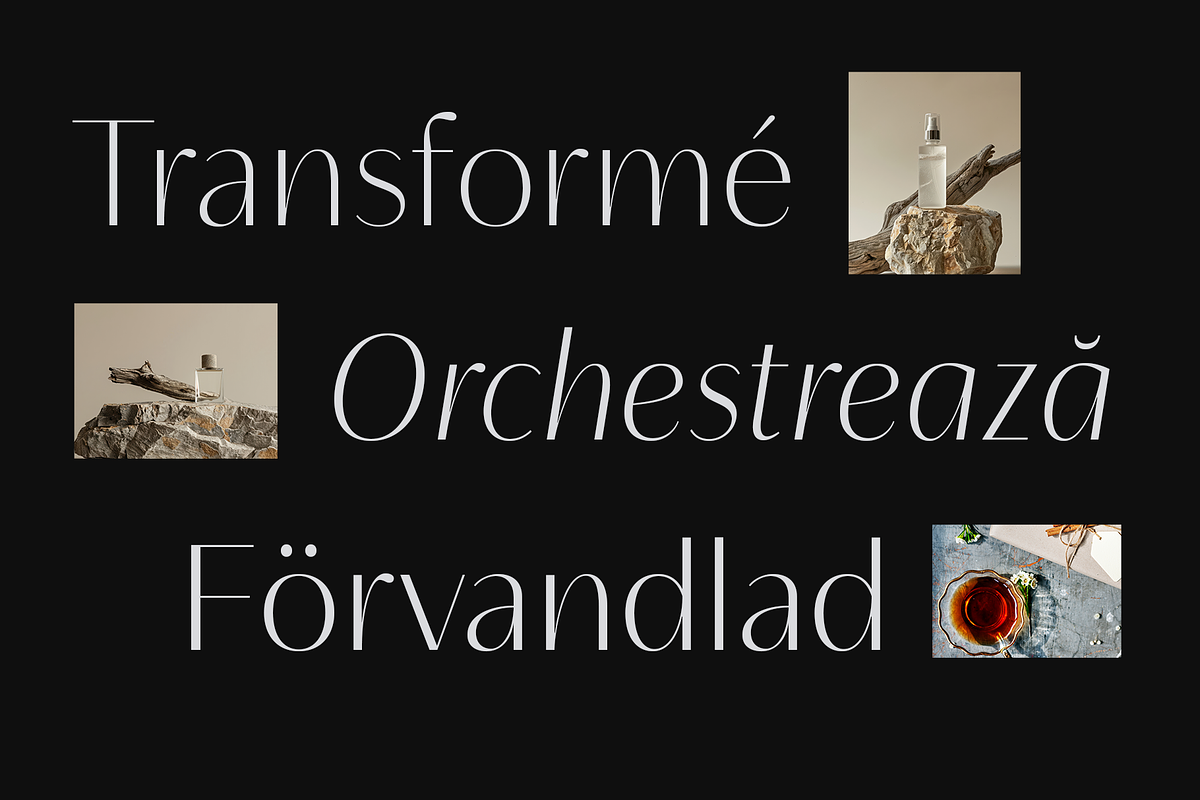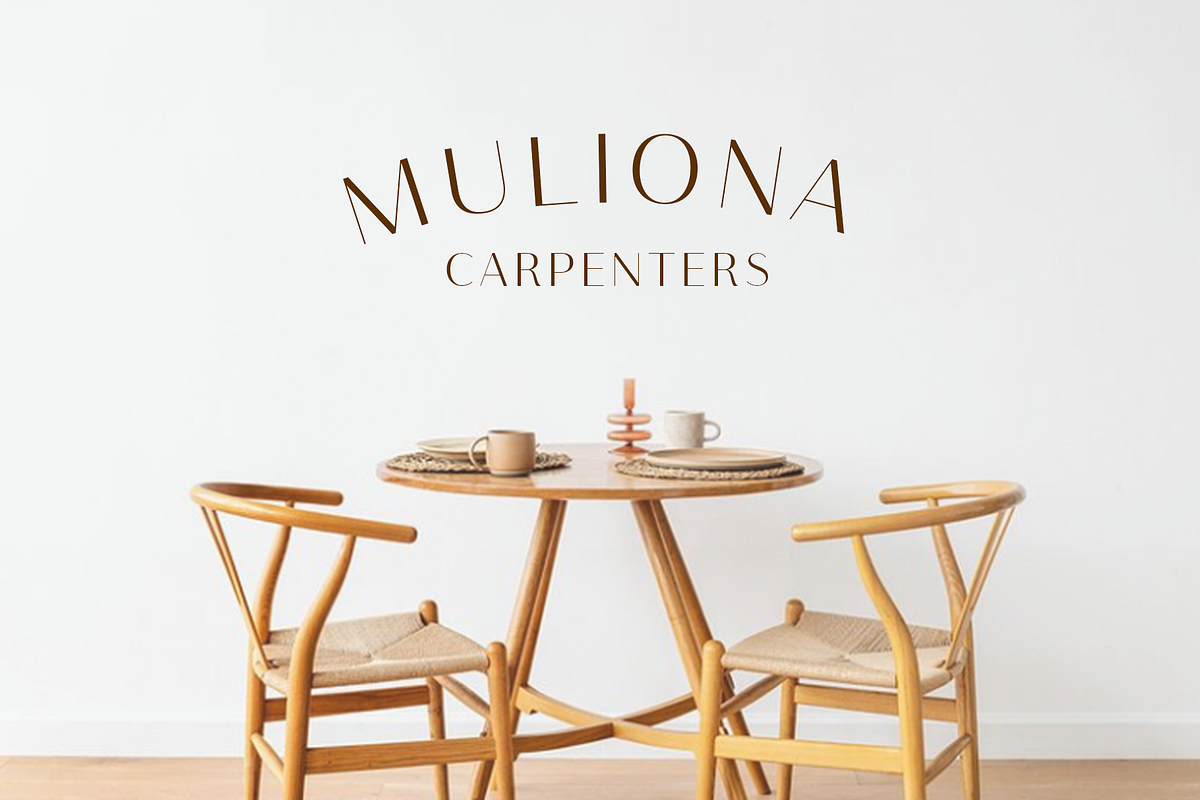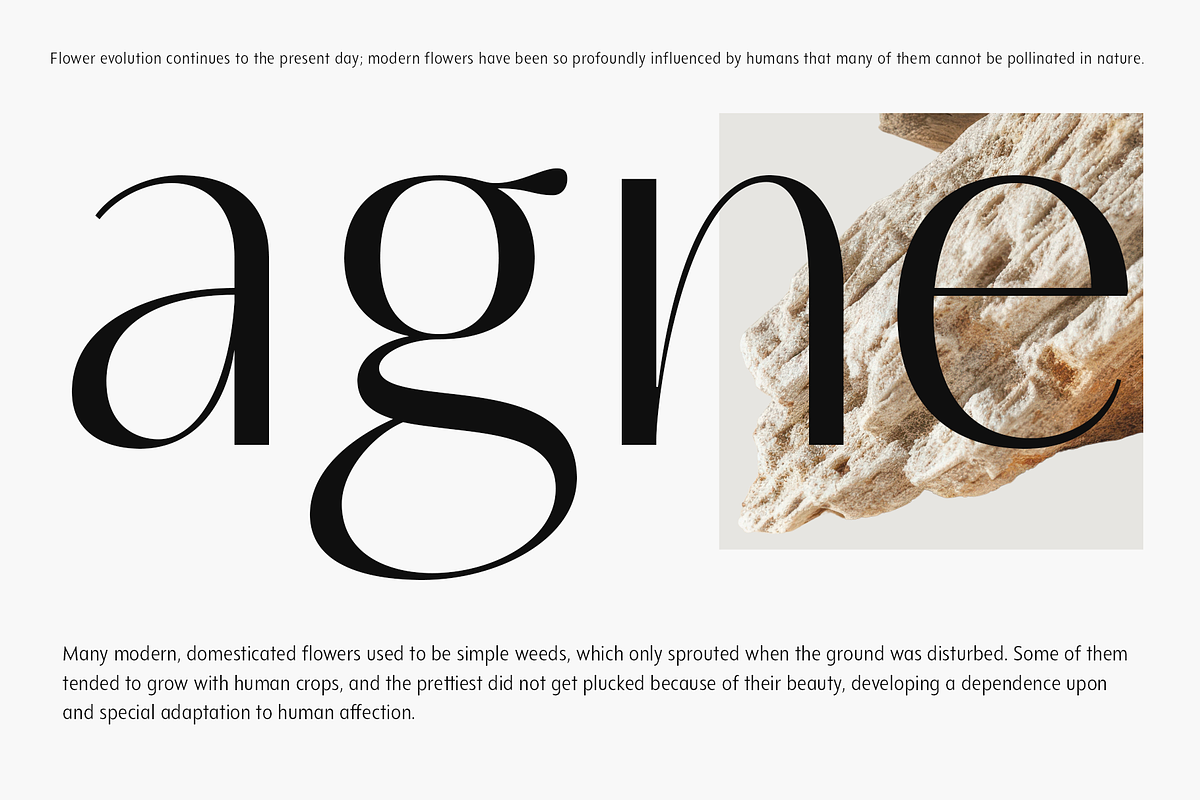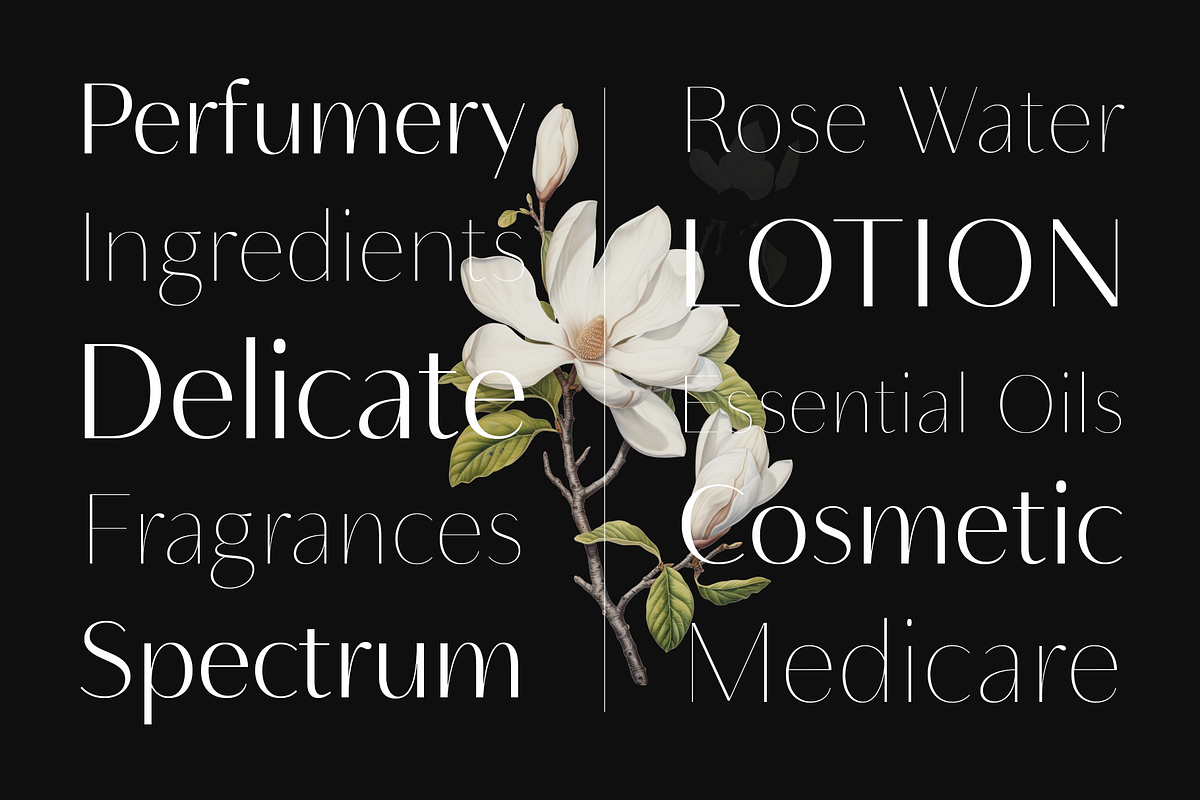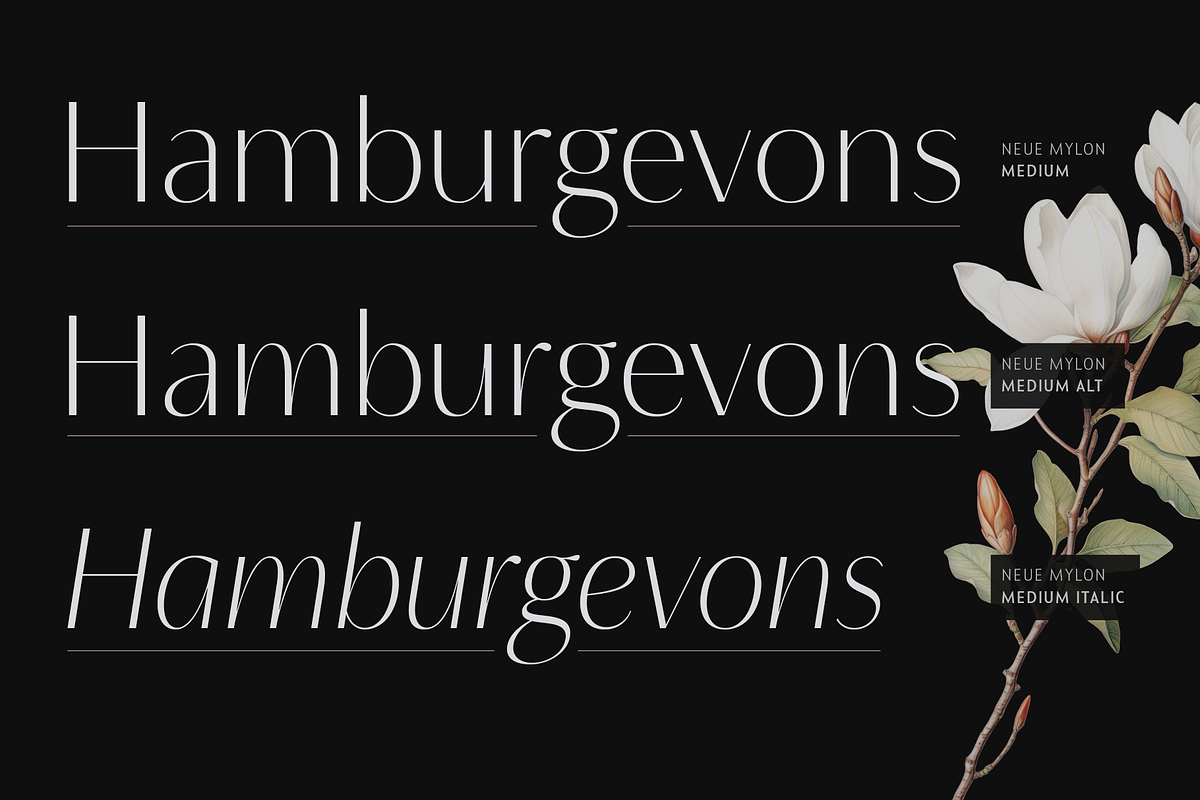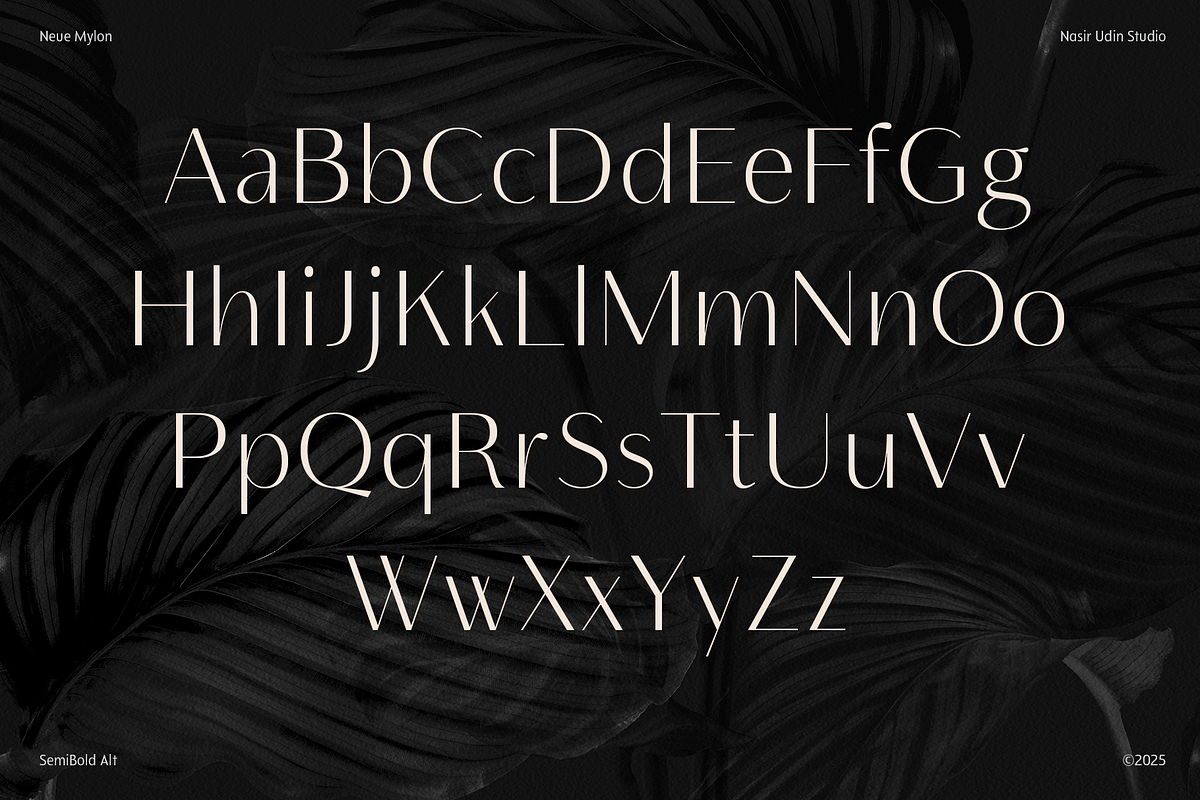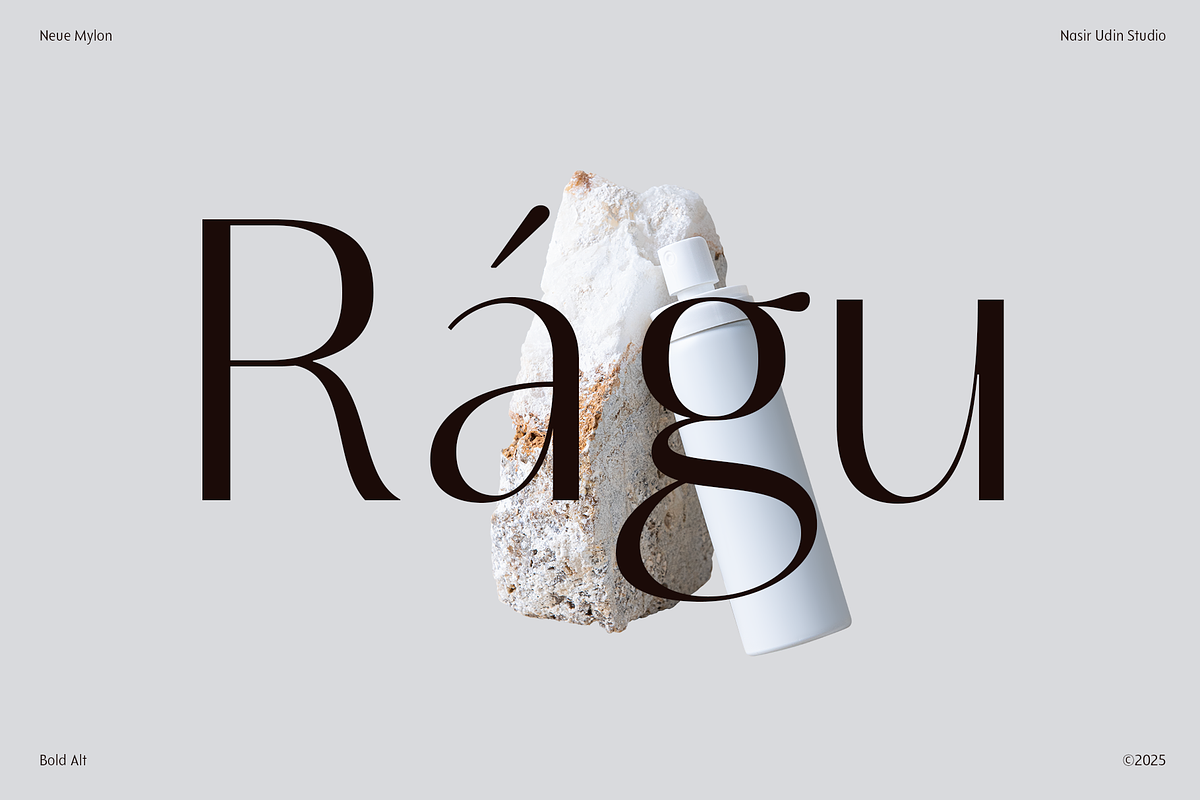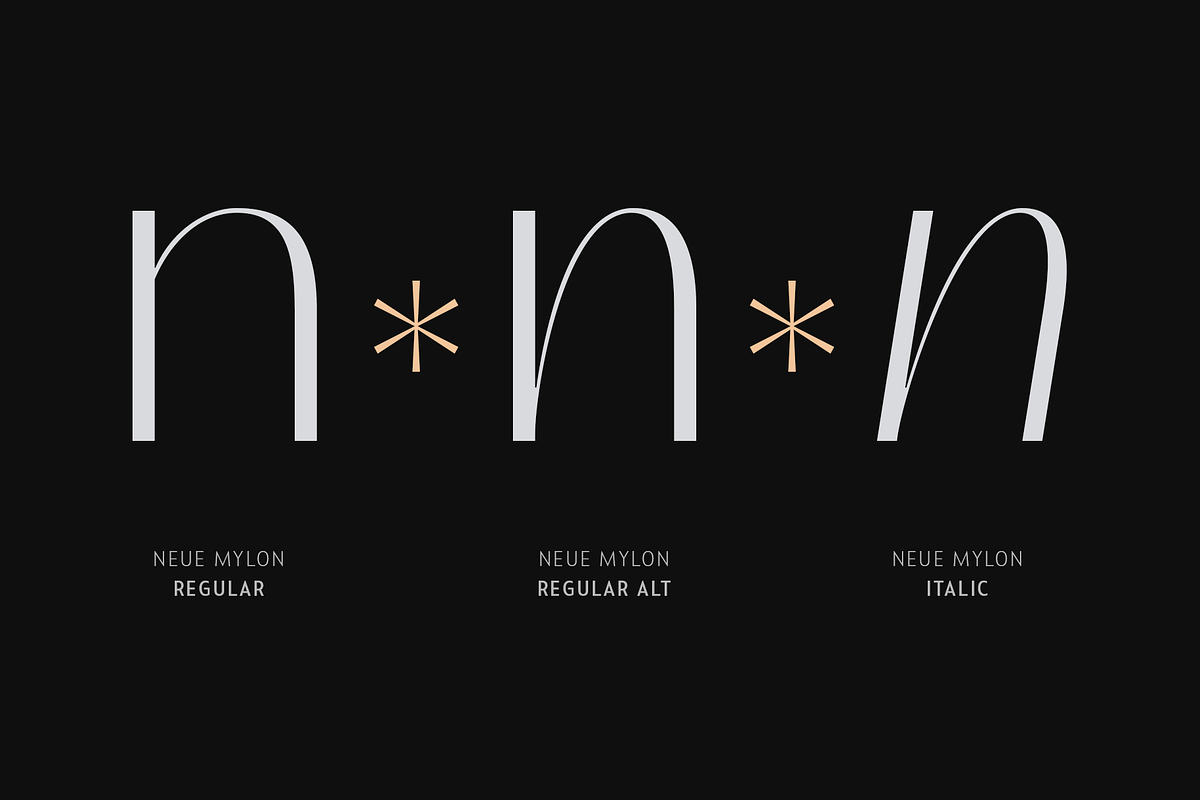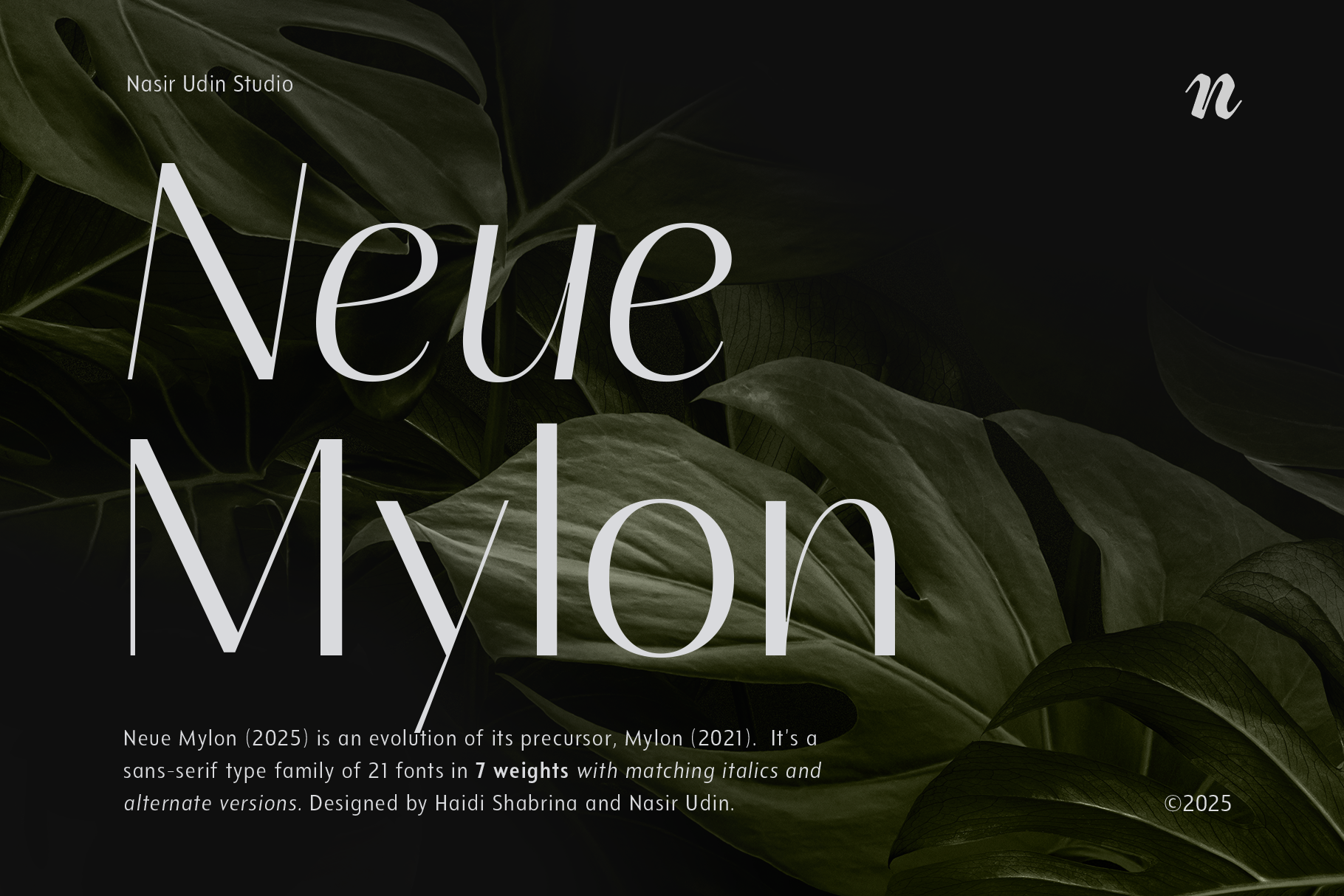
Neue Mylon - 21 Fonts
Neue Mylon is an evolution of its precursor, Mylon (2021). It’s a sans-serif type family of 21 fonts in 7 weights plus matching italics and alternates versions. Thin, sexy, elegant, and a bit playful (for the alternate vesion), are the key features of this typeface.
Neue Mylon works well with headlines or short paragraphs. It has extended latin character set that supports 200+ latin-based languages.